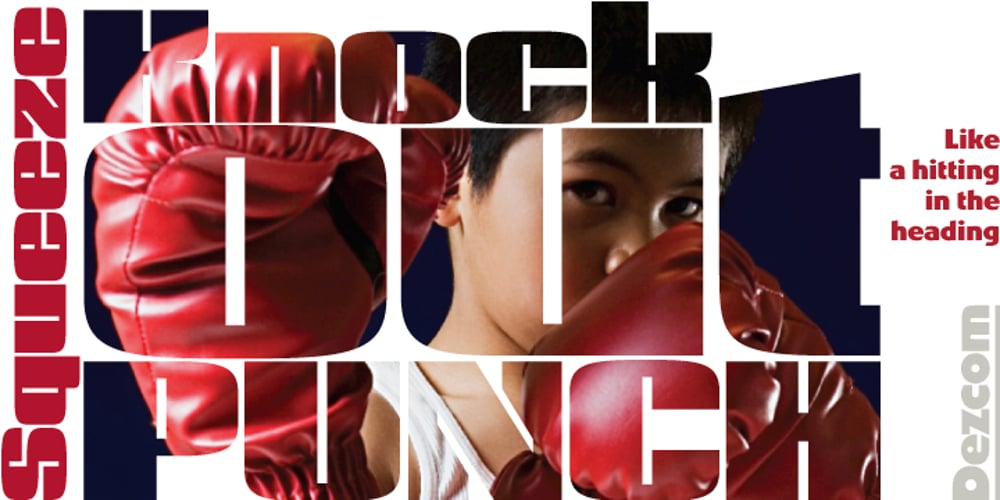
Dez Squeeze
Dez Squeeze font
Dez Squeeze Font Family was designed by Chris E. Lozos and published by Dezcom. Dez Squeeze contains 1 styles and family package options. When you don’t want to speak softly, Squeeze can shout above the crowd. Say it loudly and proudly, this face does not have a weight problem. The Dez Squeeze Pro Family is also now available from Dezcom in seven widths. http://www.myfonts.com/fonts/dezcom/dez-squeeze-pro/ Dez Squeeze has 483 glyphs with uppercase, lowercase, proportional lining figures, unicase, stylistic sets, alternates, ordinals, and case specific punctuation. It has a full range of diacritics and covers all European languages using the Latin script.